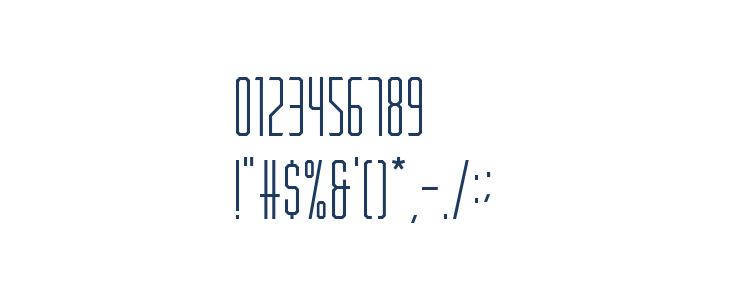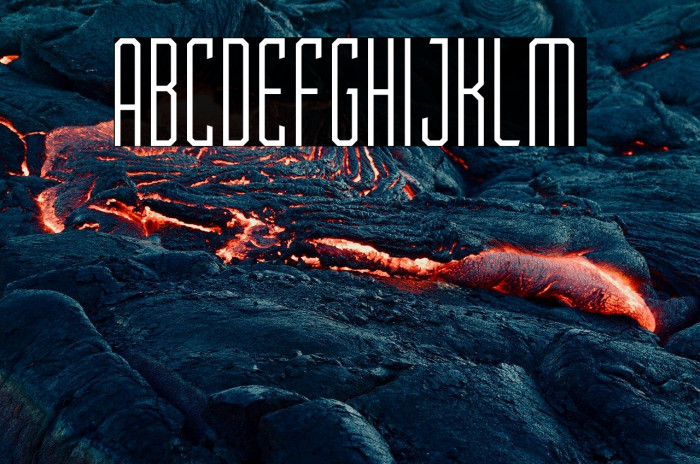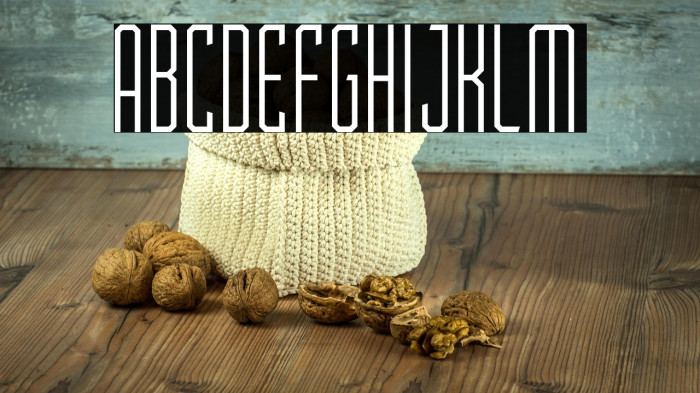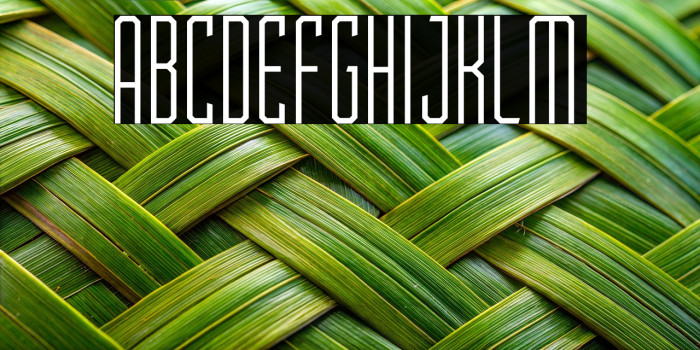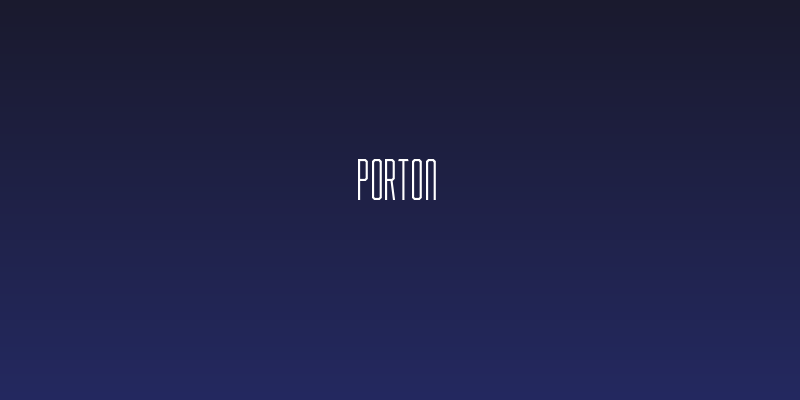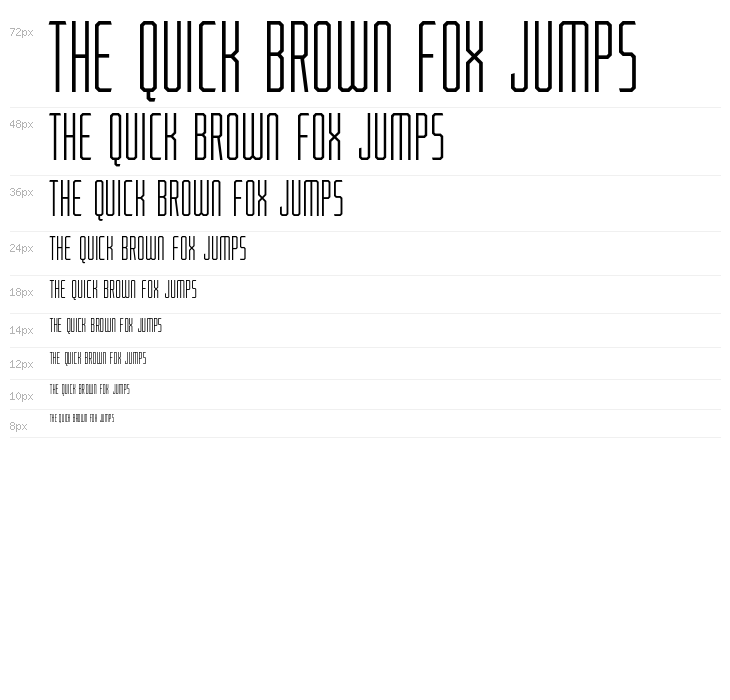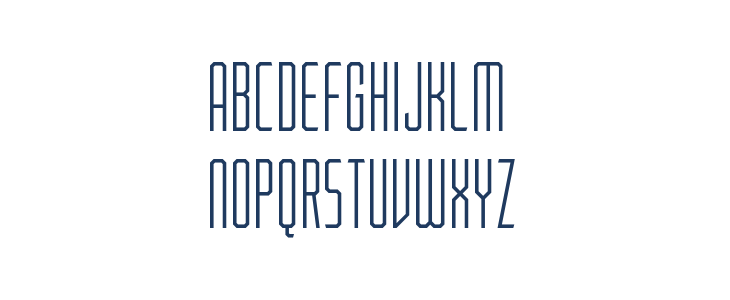
Porton Font
Porton Description
This font features a tall, narrow design with clean, straight lines and minimal curves, giving it a modern and sleek appearance. The uniform stroke width across all characters contributes to a consistent and cohesive look. The uppercase and lowercase letters maintain a similar height, enhancing the font's geometric structure. The numerals and special characters are designed to match the overall aesthetic, making them easily legible and visually appealing. This font's distinctive style is ideal for projects that require a contemporary and sophisticated touch.